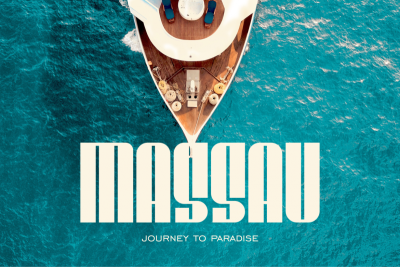
Retro font Cedric is a striking typeface that blends vintage style with a modern twist. Inspired by the design trends of the 70s and 80s, it exudes nostalgia. Its bold, geometric forms, combined with playful curves, create a fun and dynamic aesthetic. As a result, Cedric stands out without overpowering your design.
Moreover, the font is highly versatile. It works seamlessly in both digital and print mediums. Its clean lines and balanced shapes ensure excellent readability, whether used for headlines or body text. Additionally, Cedricโs multiple weights offer flexibility, making it easy to adapt to various design needs. Whether youโre designing a large poster or subtle text overlays, this font can be customized for a range of projects. Consequently, it brings timeless appeal to all kinds of creative work.
Furthermore, Cedric evokes memories of a bygone era, making it perfect for those looking to combine vintage vibes with contemporary flair. This font is versatile and works well in a wide range of design applications. Whether youโre creating a logo, flyer, or social media post, Cedric adds a bold, retro touch. Thanks to its timeless design, it ensures that your creation will be memorable.
Who Is Retro Font Cedric Perfect For?
Retro font Cedric is ideal for creative professionals who want to infuse their work with vintage flair. Graphic designers, for instance, will appreciate its bold, distinctive look when creating logos. This font is especially fitting for businesses in fashion, hospitality, or retail that want to evoke nostalgia. Consequently, Cedric helps to connect with consumers by delivering a modern yet vintage message.
Marketers and advertisers will also benefit from Cedric. The retro style connects with audiences who appreciate designs from the past. In fact, this font works particularly well in advertising campaigns aimed at nostalgic consumers. It grabs attention and helps campaigns stand out, which is why itโs a must-have for any marketing professional.
Artists and illustrators can find Cedric invaluable for projects like posters or album covers. It brings a retro charm to any visual design, adding both personality and sophistication. The fontโs unique style helps artists distinguish their work from the crowd.
Moreover, Cedric is perfect for hobbyists and DIY enthusiasts who enjoy creating personal projects. Whether you’re designing greeting cards, scrapbooks, or invitations, this font adds a stylish, retro element. Its versatility makes it a great choice for various DIY crafts.
In conclusion, retro font Cedric is the perfect choice for any design project. Thanks to its mix of past and present, it ensures your work stands out, leaving a lasting impression. Its bold yet approachable style makes it an essential font for anyone looking to make their designs shine.